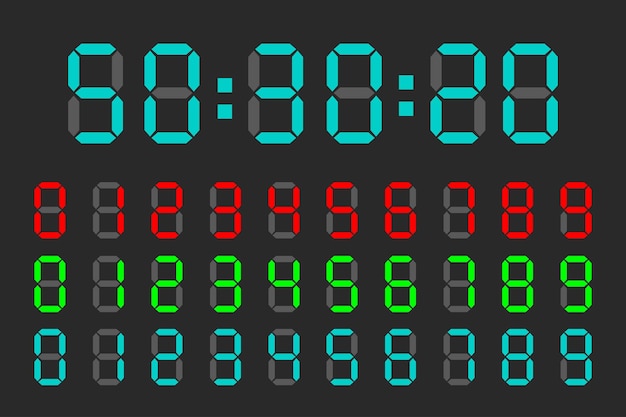
electronic digits numbers font from a clock and a countdown timer Watch and calculator display symbols Led digit set
Electronic digits numbers font from a clock and a countdown timer Watch and calculator display symbols Led digit set